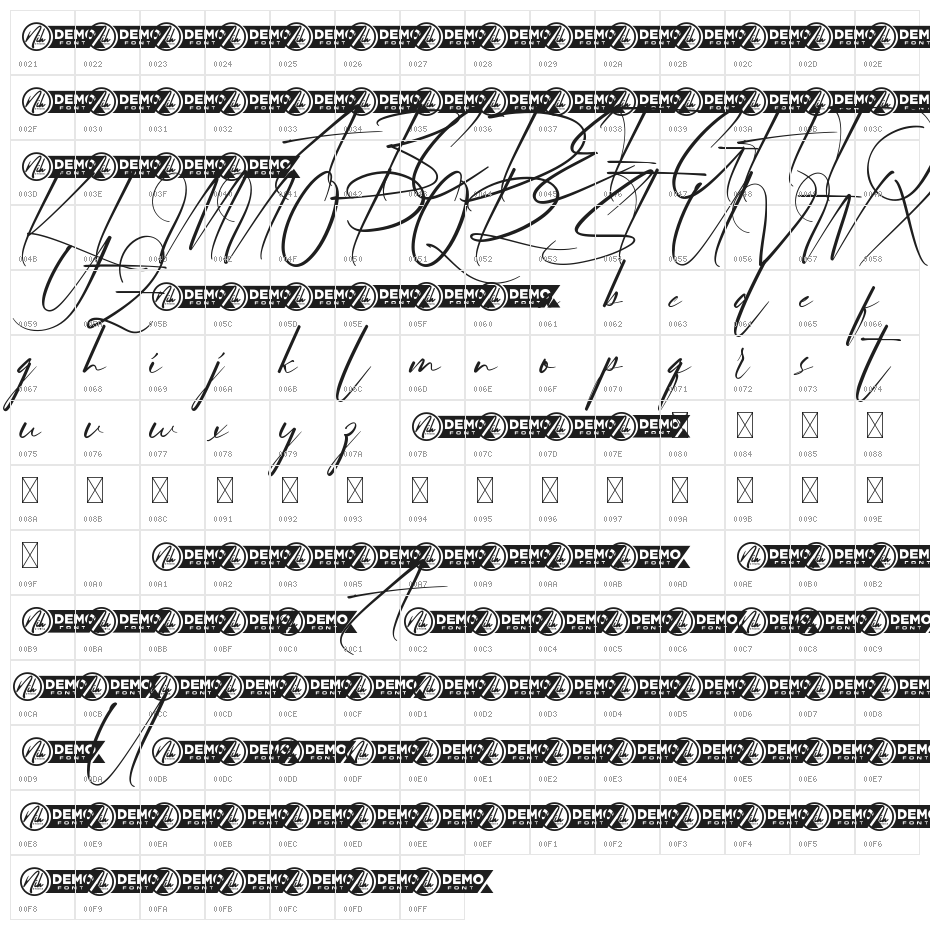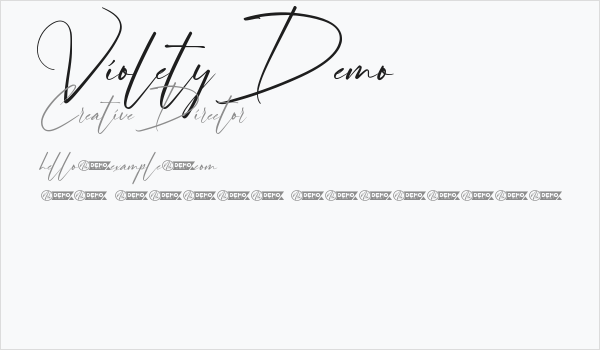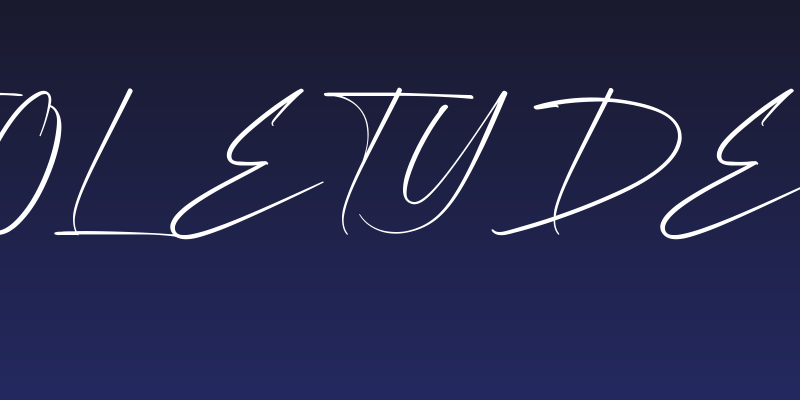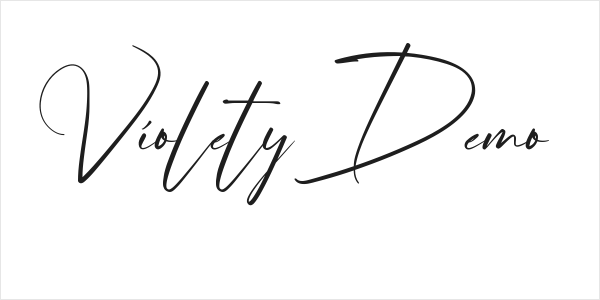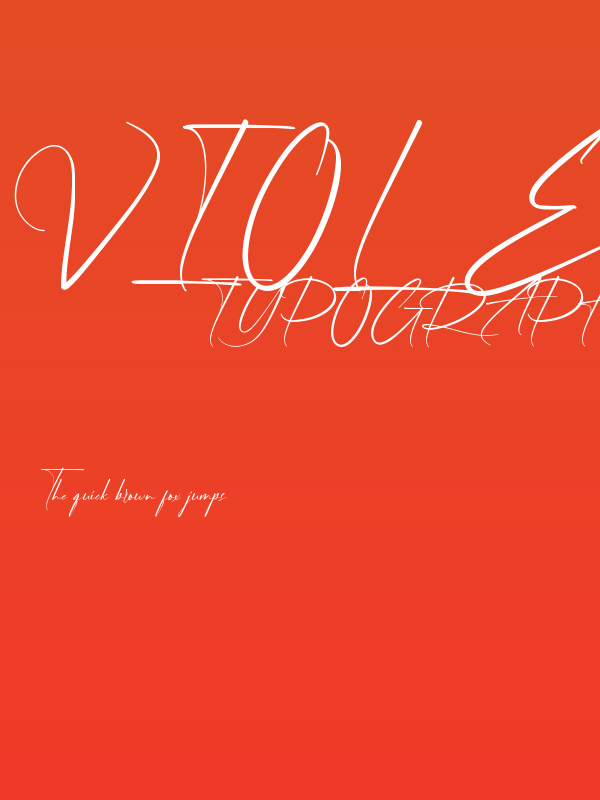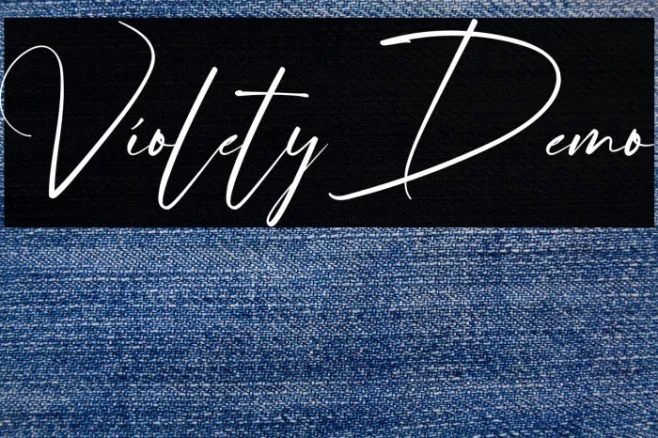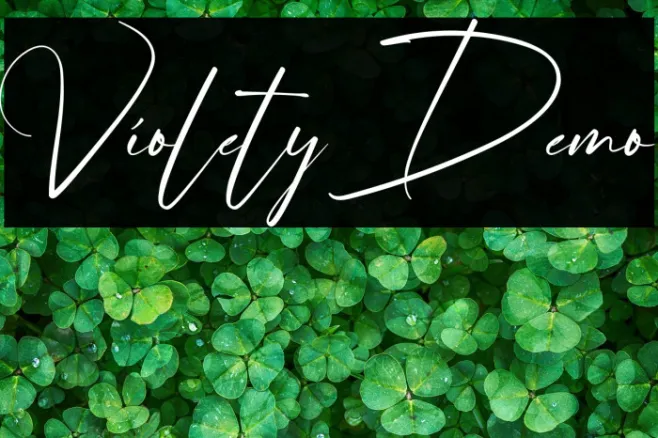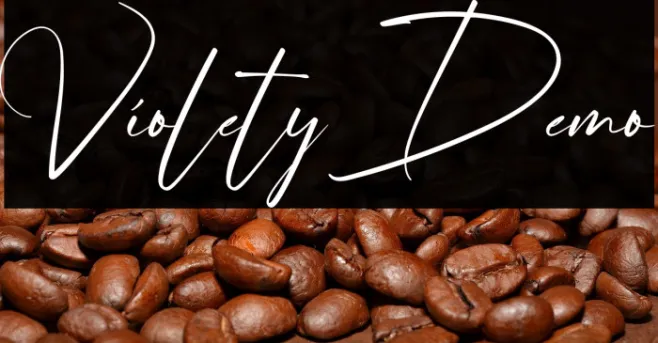
Violety Demo Font
Violety Demo Description
A flowing, elegant script font with a handwritten style, featuring high contrast and elongated letterforms.
| Use Case | Logos, Invitations |
| Proposed Projects | Wedding invitations, greeting cards, elegant branding. |